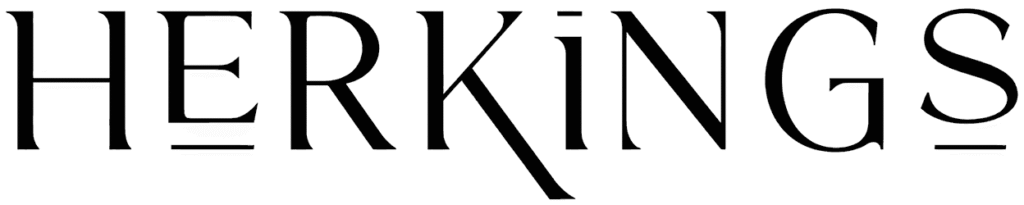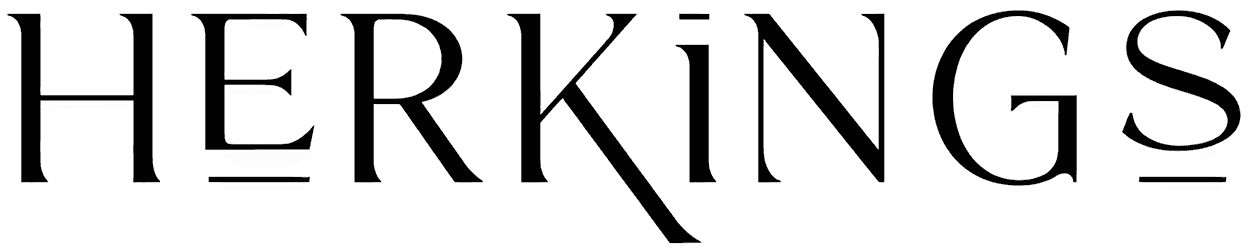
Herkings Font
The Herkings is a well-designed, fancy-looking font that has an attractive personality. This luxury serif font has a luxury style and can be helpful for various cases such as logos, advertisements, posters, and magazines…
The Herkings is a well-designed, fancy-looking font that has an attractive personality. This luxury serif font has a luxury style and can be helpful for various cases such as logos, advertisements, posters, and magazines.
Besides, the Herkings font has a modern form, and it does not offer numbers and lowercase letters. Some letters are underlined, which grabs the eye and makes this font memorable for your audience.